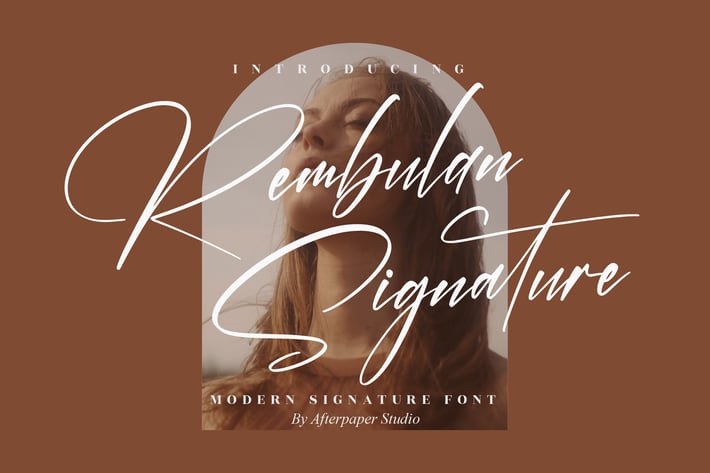
Rembulan Signature Modern Signature Font
Rembulan Signature is a refined, modern signature script that brings effortless elegance to any project. With sleek strokes and graceful swashes, it’s ideal for premium branding, logos, and editorial visuals where a personal-yet-polished touch matters. Use it to elevate wedding suites, social posts, packaging, or any design that needs contemporary handwritten charm.
+ Natural signature look with smooth curves and stylish swashes
+ Supports uppercase & lowercase, numerals, and punctuation
+ Clean results for print and web at any size
+ Branding systems & logo marks
+ Business cards, thank-you cards, and stationery
+ Wedding invitations & event suites
+ Social media graphics & ads
+ Packaging, labels, and product tags
+ Editorial headers & posters
Add modern handwritten elegance to your brand with Rembulan Signature’s clean, graceful script.